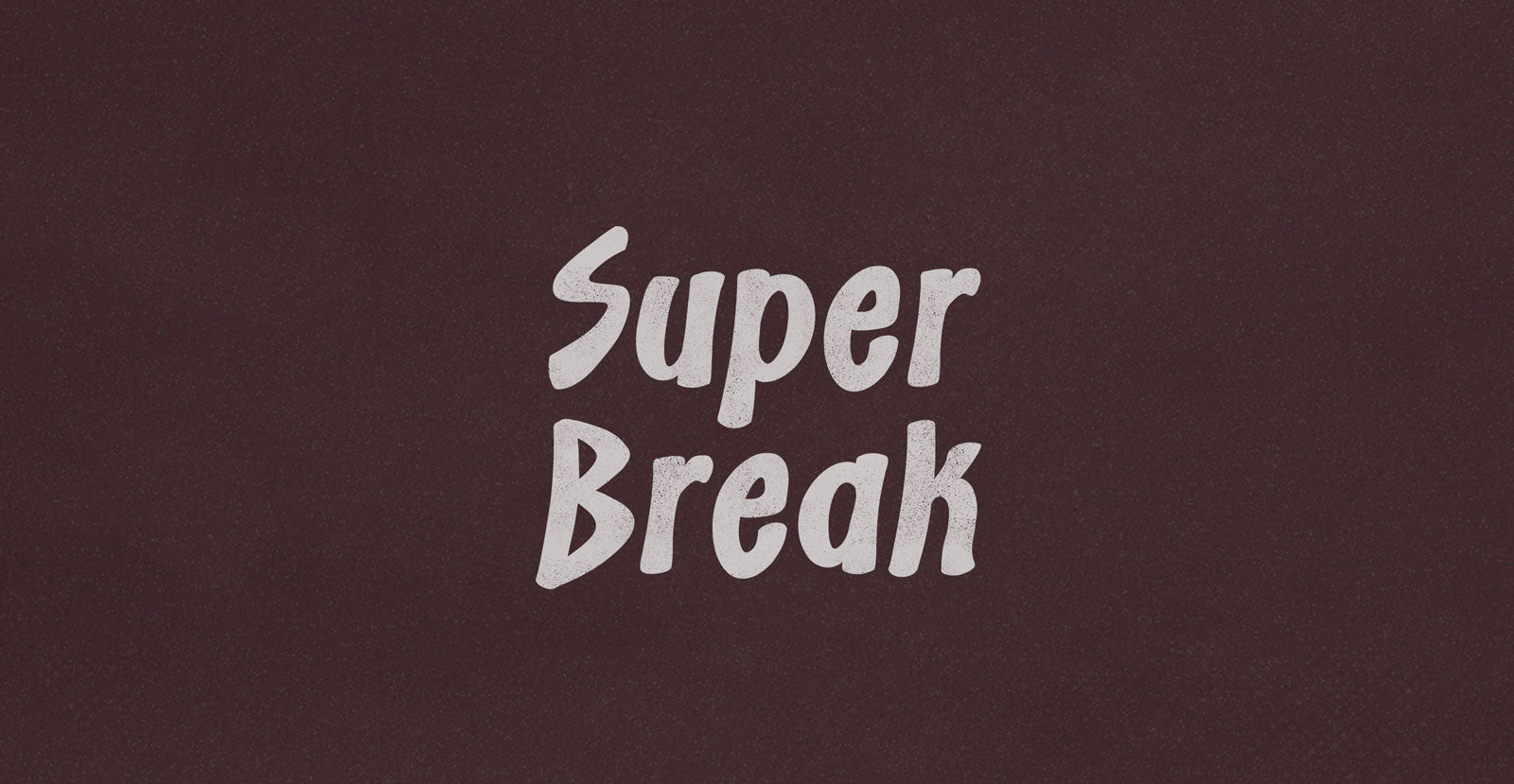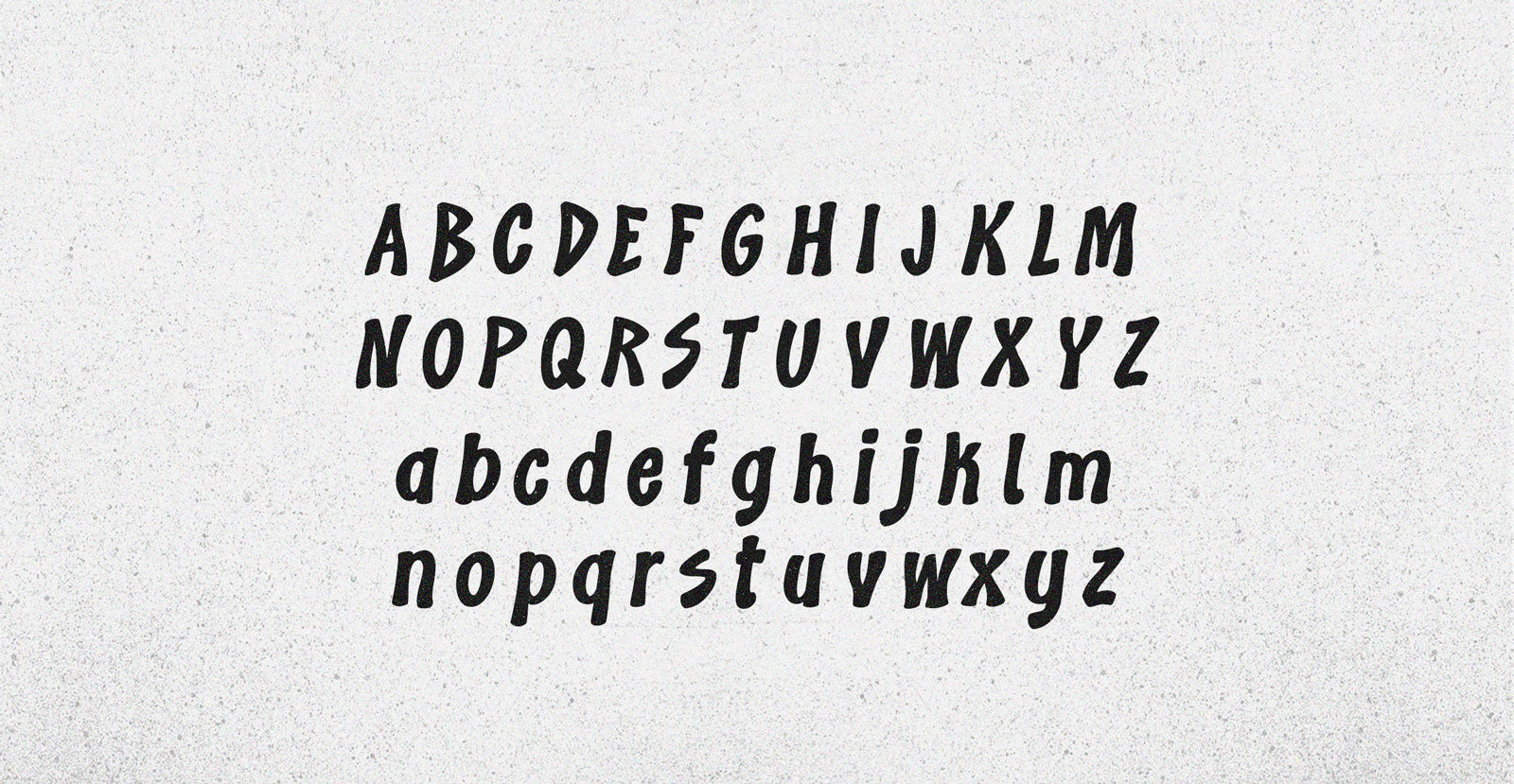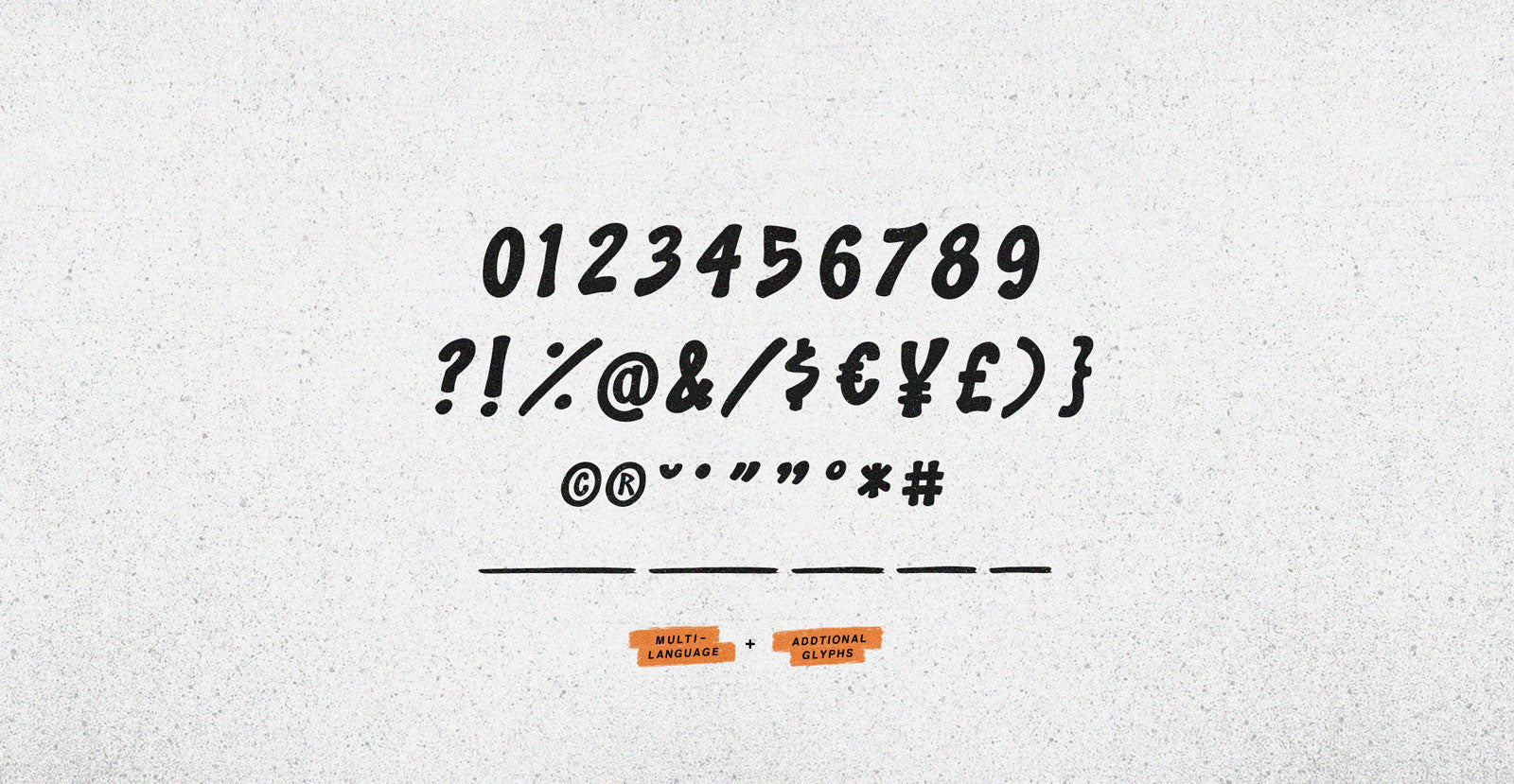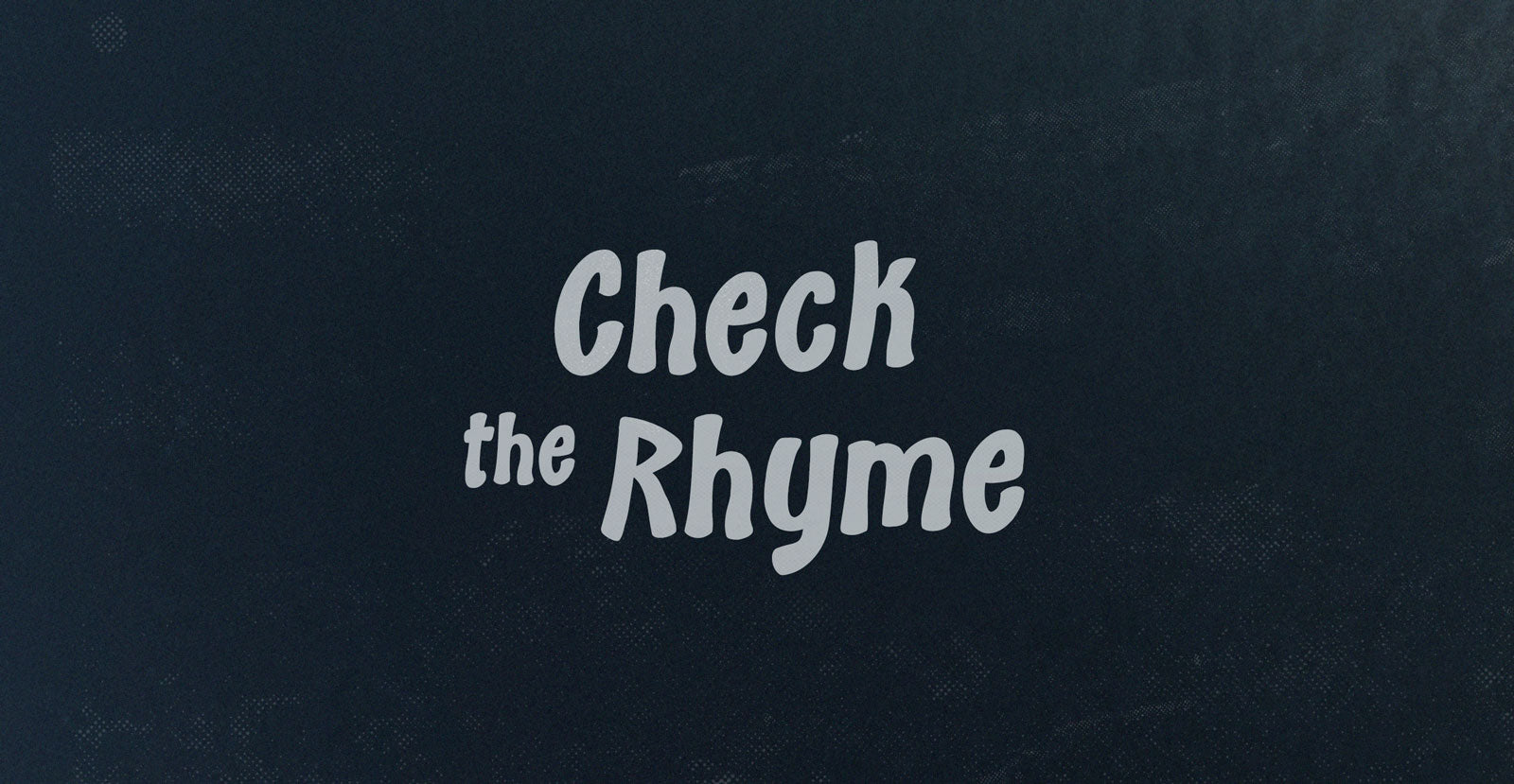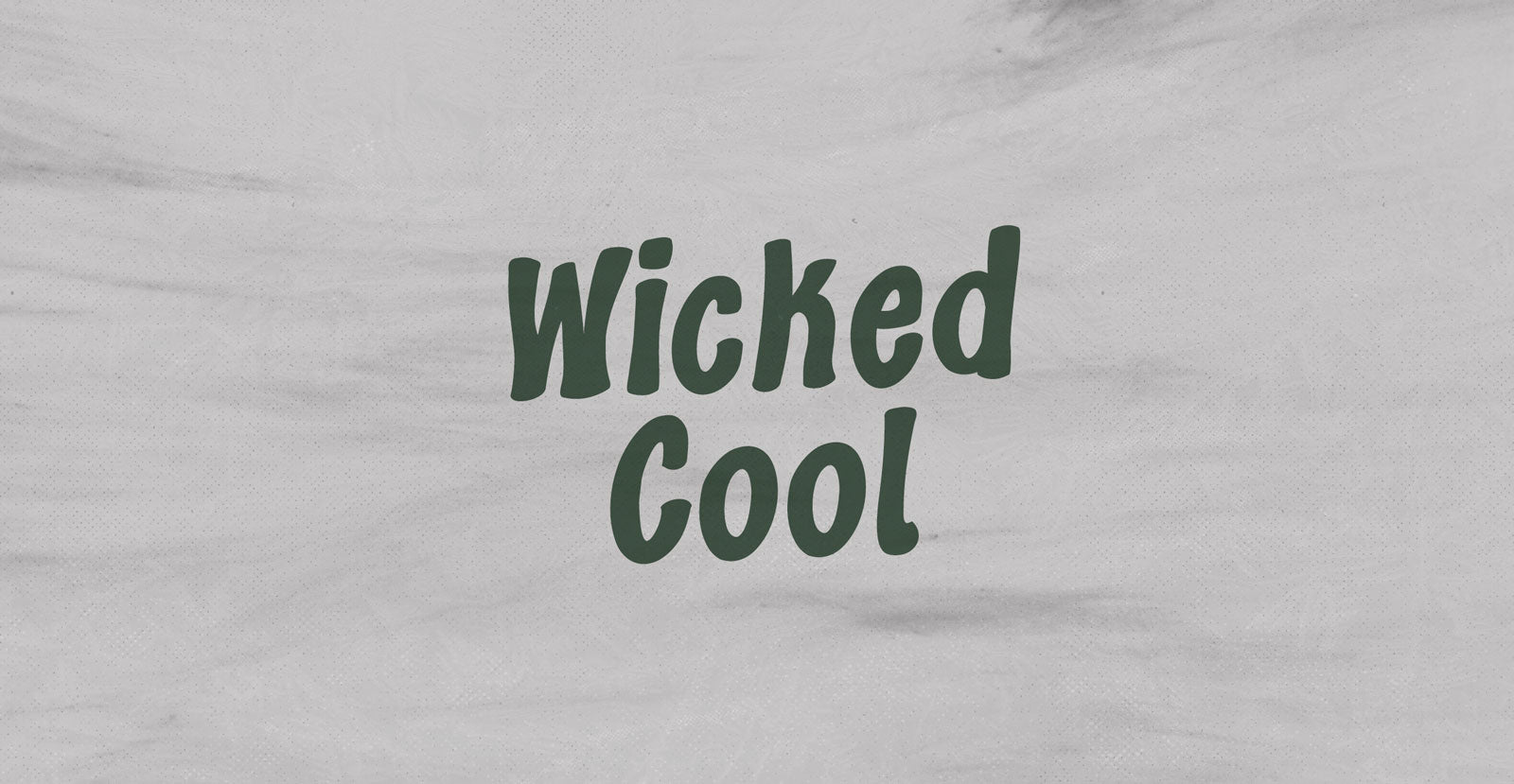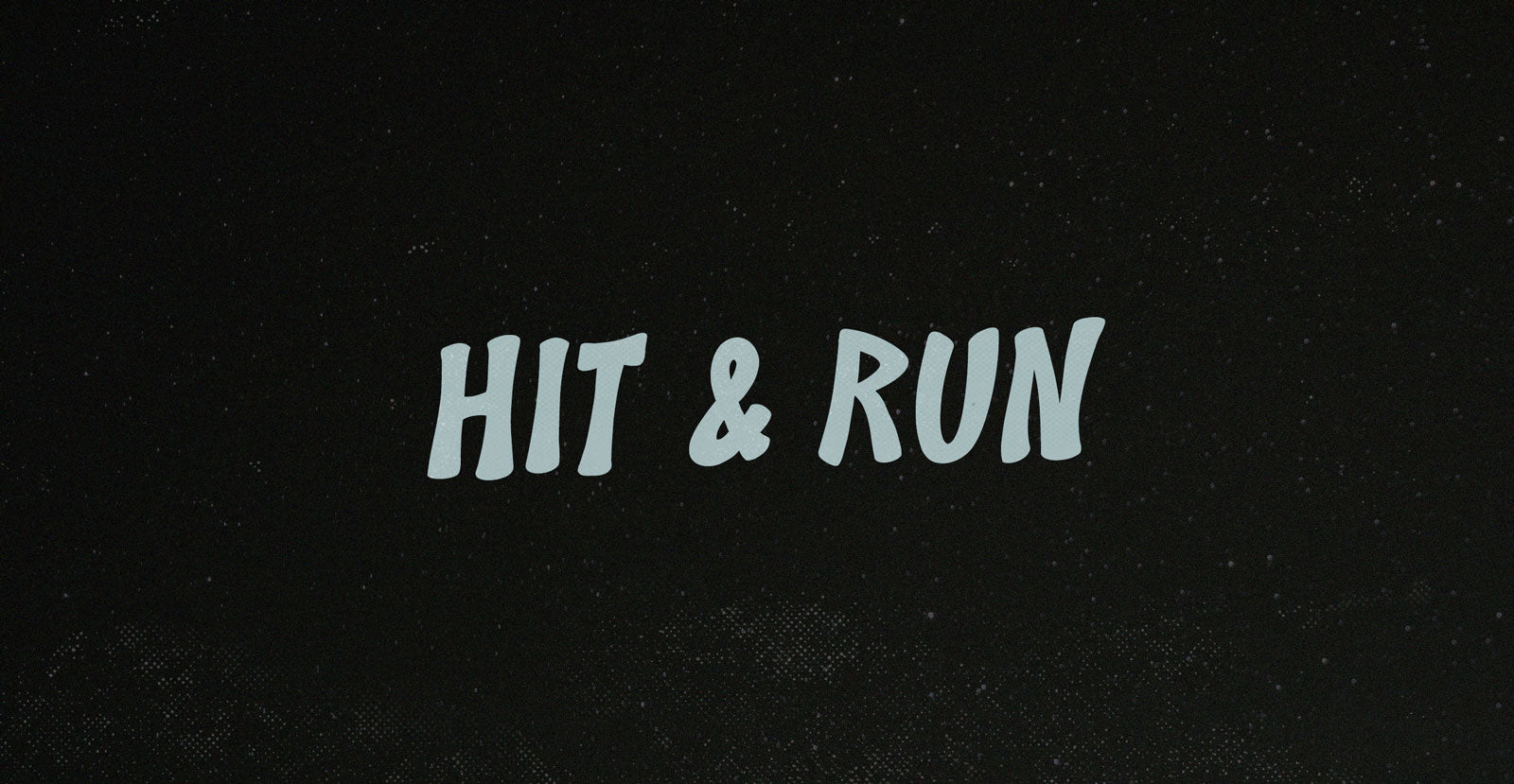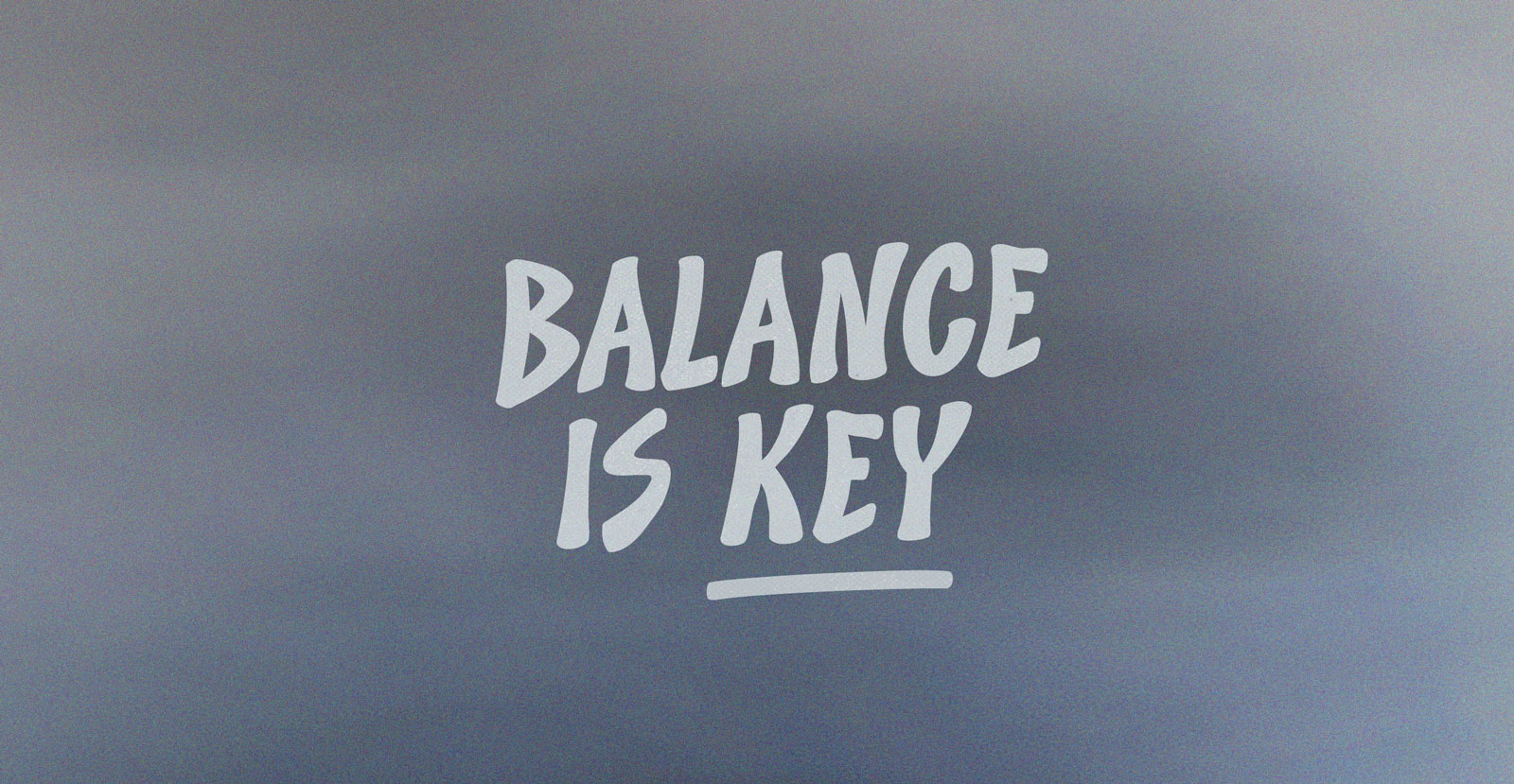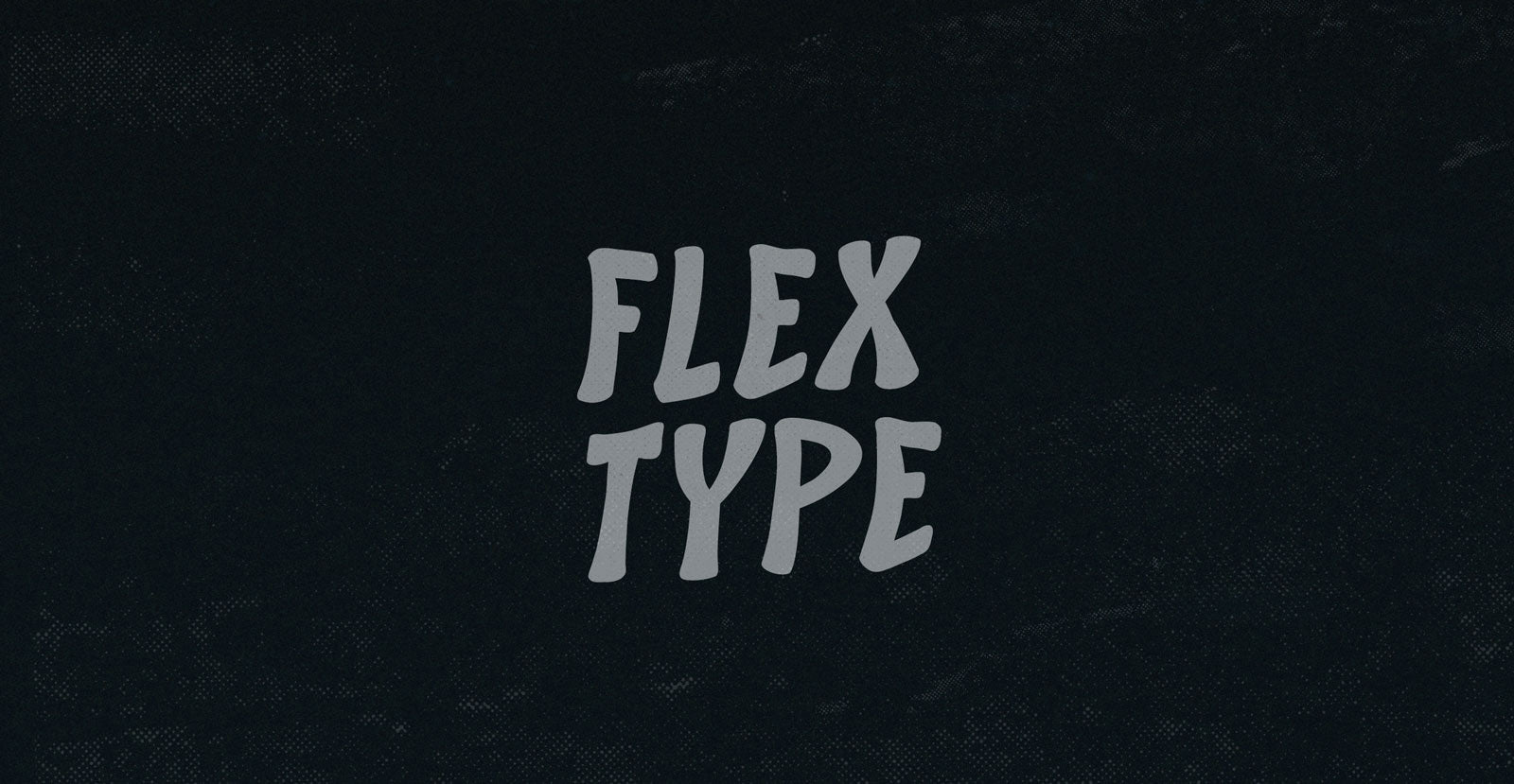
Super Break
Handwritten Brush Font
Tubes curl around themselves, petals on the point, plucked off and dropped like she loves me not. Catch a Super Break twice daily—os tubos point to Peniche, but break beats, break records, break wind, break reefs—if you can’t, come back rolled under and recycled.